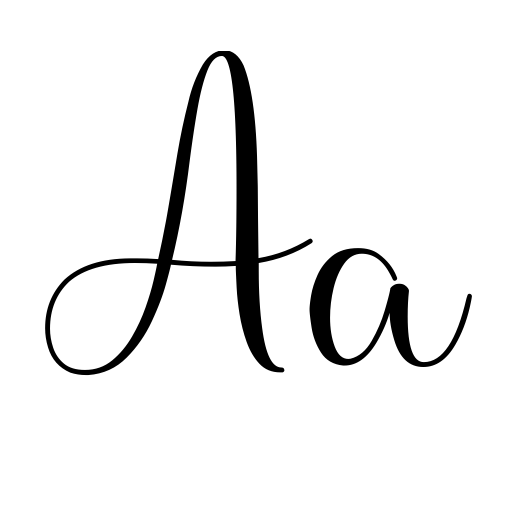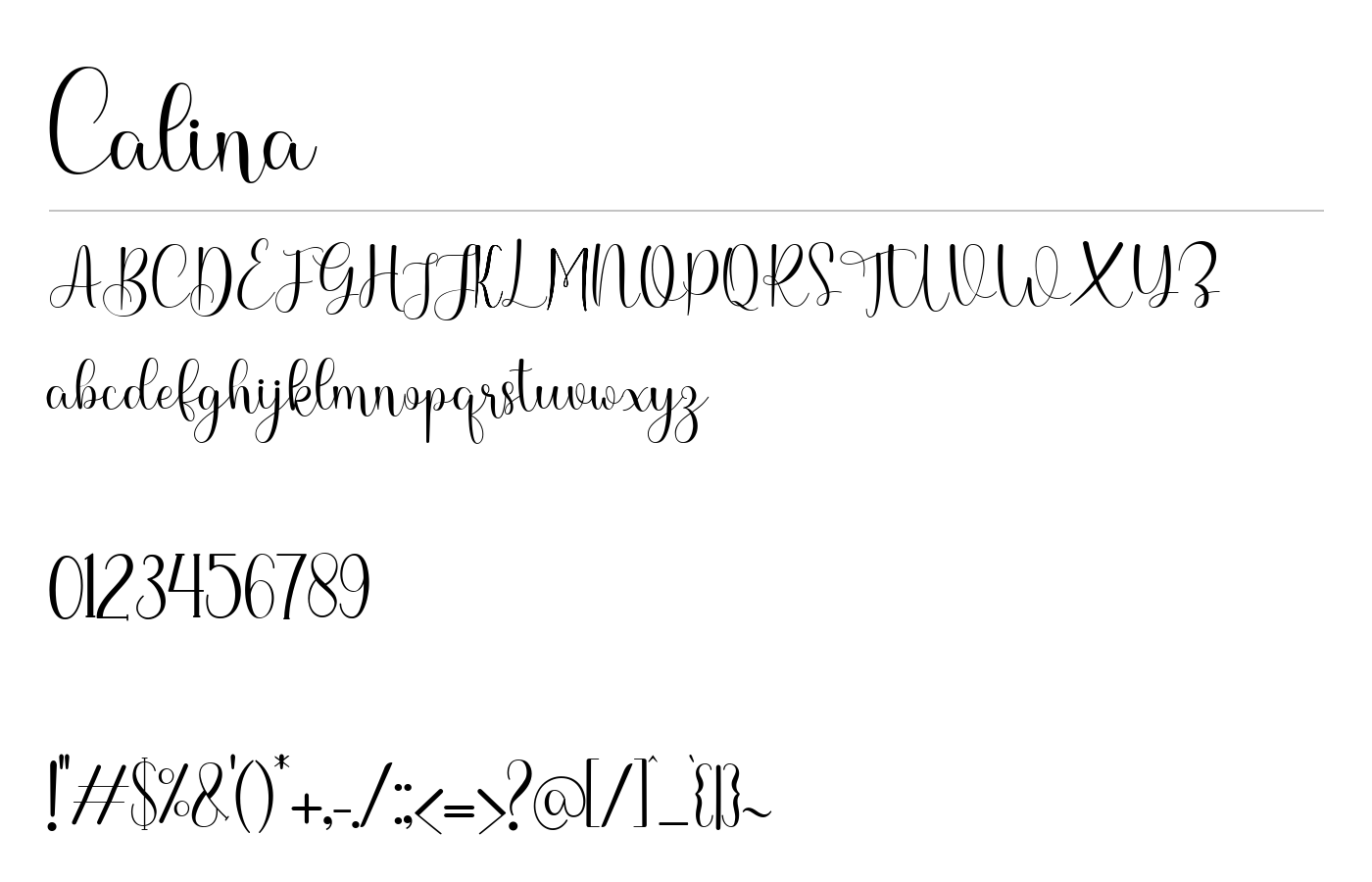
Calina is an elegant script font with delicate, flowing letterforms that combine thin strokes and graceful swashes, creating a light and airy feel. Its tall x-height and playful curves make it perfect for feminine branding, wedding invitations, and stylish logos where a sophisticated yet approachable look is desired. This font shines in designs that need a touch of elegance without being overly formal.
Calina Font